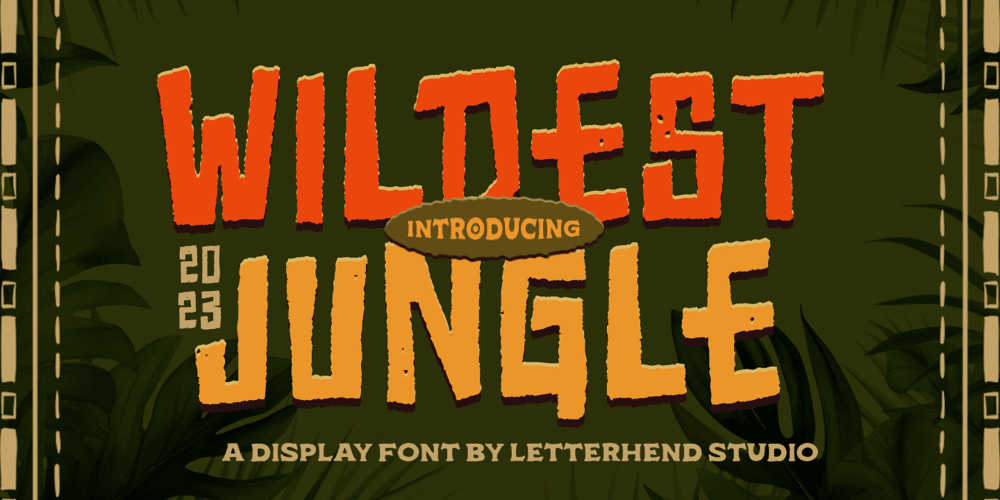
Wildest Jungles Font Family was designed by Hendry Juanda and published by Letterhend. Wildest Jungles contains 1 styles and family package options. Wildest Jungle is a textured display font with cartoon vibes. This font perfectly made to be applied especially in logo, and the other various formal forms such as invitations, labels, logos, magazines, books, greeting / wedding cards, packaging, fashion, make up, stationery, novels, labels or any type of advertising purpose.Features : Uppercase & lowercase Numbers and punctuation Alternates & Ligatures Multilingual PUA encoded